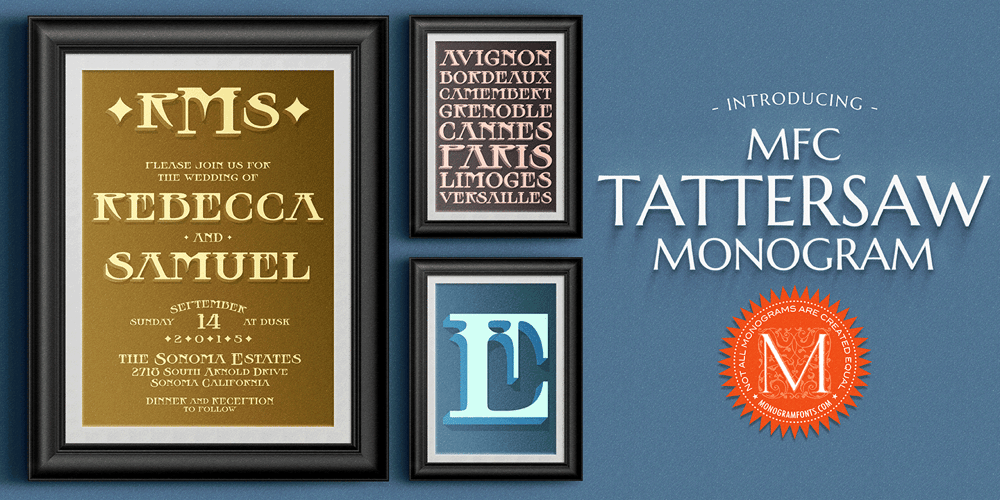
MFC Tattersaw Monogram Font Family was designed by Jim Lyles, Brian J. Bonislawsky and published by Monogram Fonts Co.. MFC Tattersaw Monogram contains 5 styles and family package options. The source of inspiration for MFC Tattersaw Monogram is a specimen from the 1917 “Strong’s Book of Designs”. This popular lettering style has been incorporated into numerous film type foundries of the past, but lacked digital permanence. We’ve expanded the original All Capitals glyphset to include smallcaps to make monograms, have added numerals and included unique ornamentation for basic titling typesetting. Download and view the MFC Tattersaw Monogram Guidebook if you would like to learn a little more.